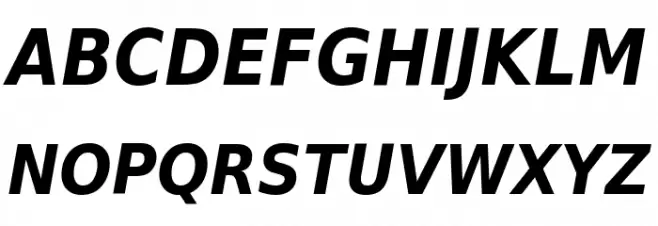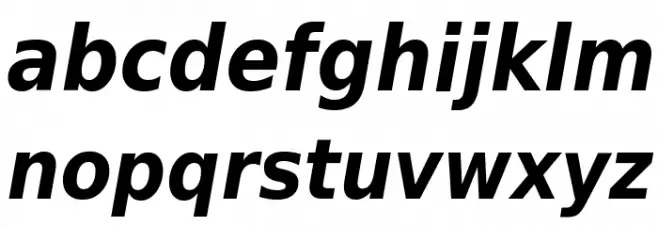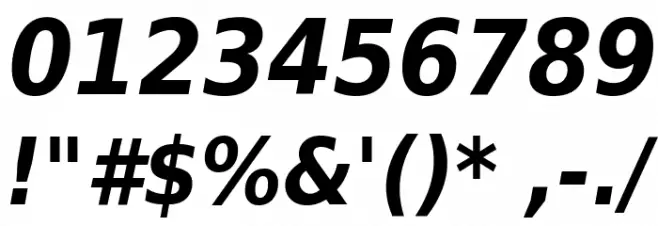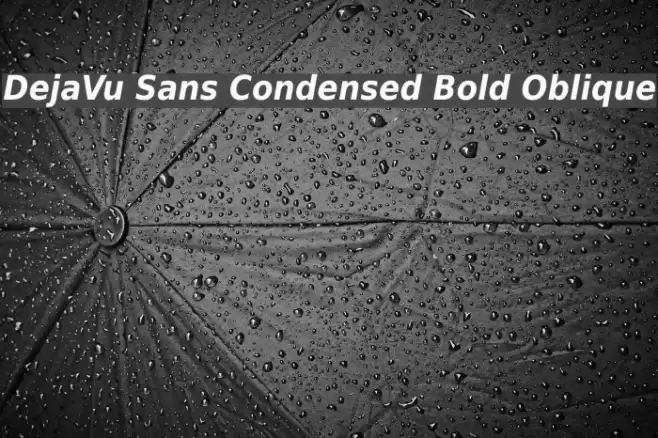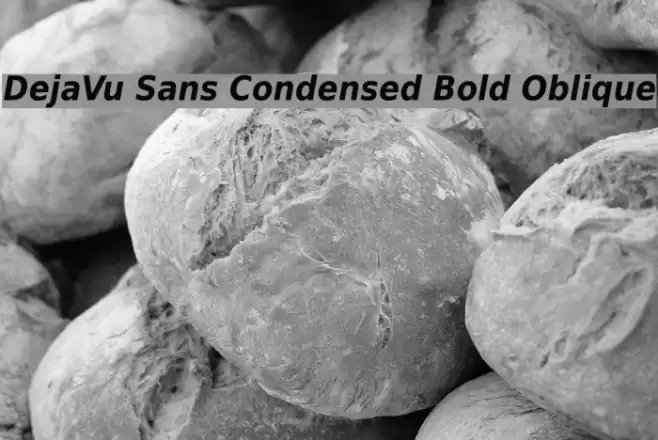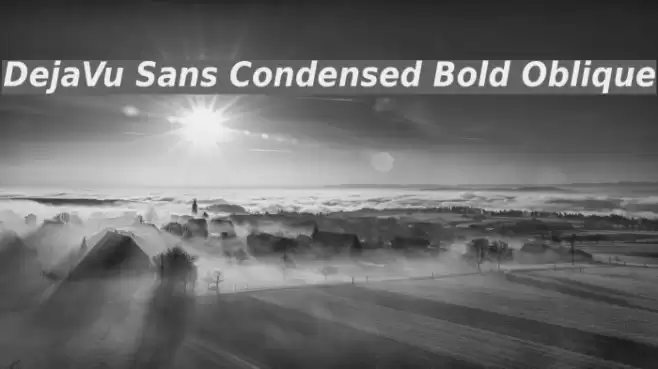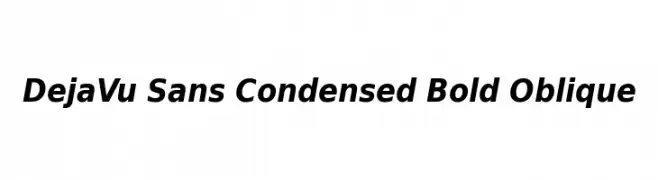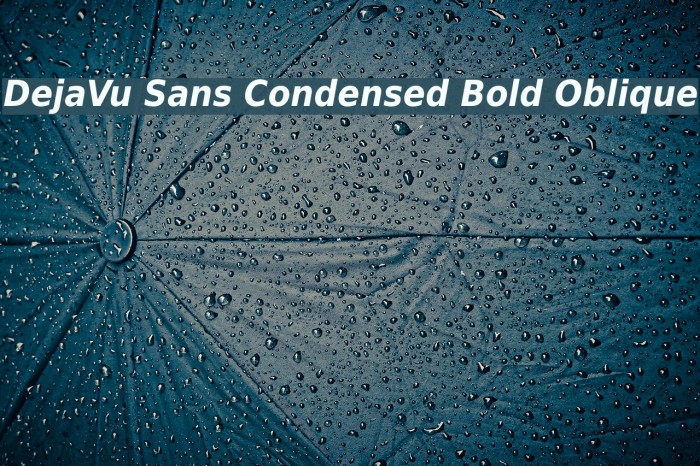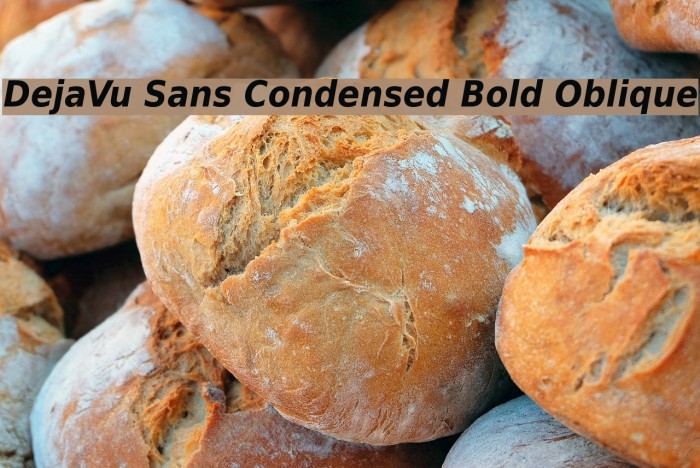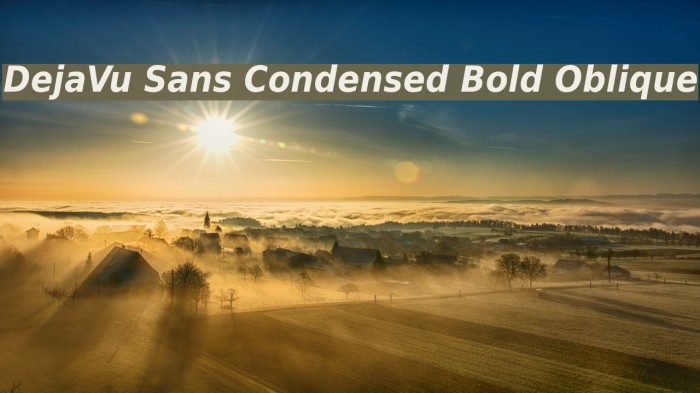
DejaVu Sans Condensed Bold Oblique
This font features a bold and oblique style, offering a strong and dynamic appearance. The characters are condensed, which allows for efficient use of space while maintaining readability. The sans-serif design gives it a modern and clean look, suitable for various digital and print applications. The strokes are consistent in thickness, providing a uniform and cohesive aesthetic. The italicized slant adds a sense of motion and emphasis, making it ideal for headlines or attention-grabbing text. The font includes a full set of uppercase and lowercase letters, numerals, and a variety of special characters, ensuring versatility in usage.
Bold, oblique, and condensed sans-serif font with a modern and dynamic style.
- Proposed Projects: Ideal for headlines, advertising, branding, and digital content where space is limited but impact is needed.
- Width: Condensed
- Character Spacing: Tight
- Use Case: Headlines, Logos, Advertising